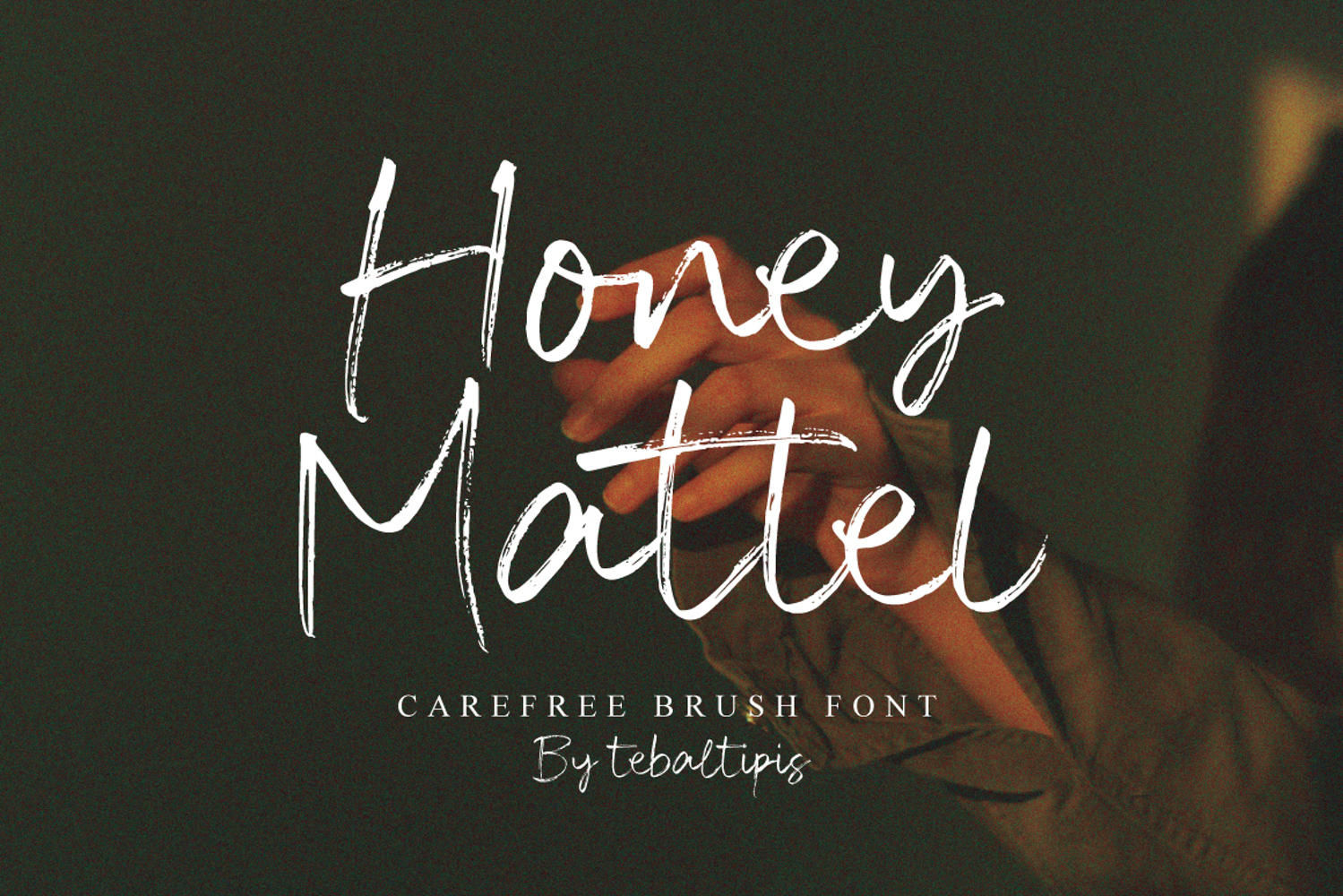
Honey Mattel Brush
Tropical & Bright Atmosphere: The combination of white lettering against a background of lemons and green leaves creates a fresh, natural, and energetic feel.